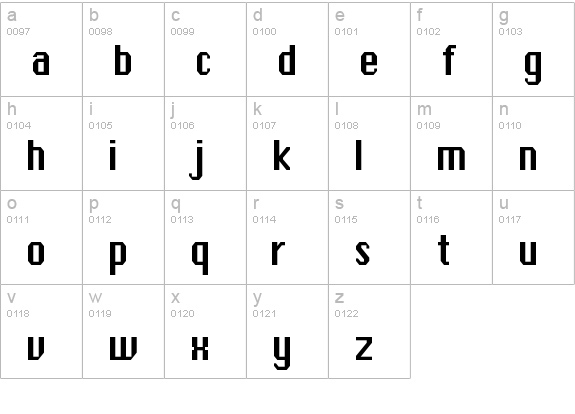
Ambush-Condensed Normal Font Details
Ambush-Condensed Normal is the standard, neutral, condensed-width variant in the Ambush typeface family \xE2\x80\x94 well suited to general body text, paragraphs, and standard typographic work.
Ambush-Condensed Normal font is a sleek and modern typeface that exudes a sense of sophistication and style. With its condensed form and clean lines, this font is perfect for creating eye-catching designs that demand attention. Whether you're working on a logo, poster, or website, Ambush-Condensed Normal font will add a touch of elegance to your projects. This versatile font is ideal for both headlines and body text, making it a go-to choice for designers looking for a reliable and stylish typeface. Its legibility and readability make it suitable for a wide range of projects, from branding to editorial design. Best of all, Ambush-Condensed Normal font is available for free download at FontsMarket.com. So why wait? Add this stunning font to your collection today and elevate your designs to the next level.